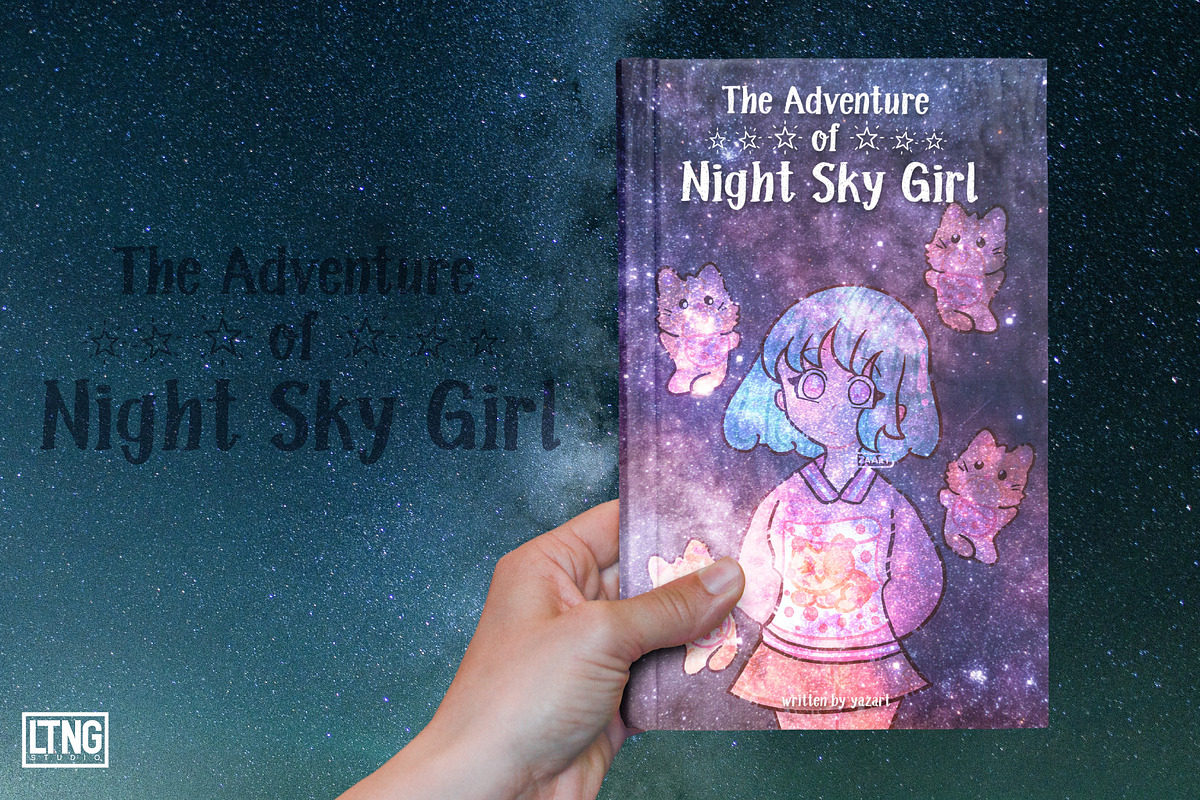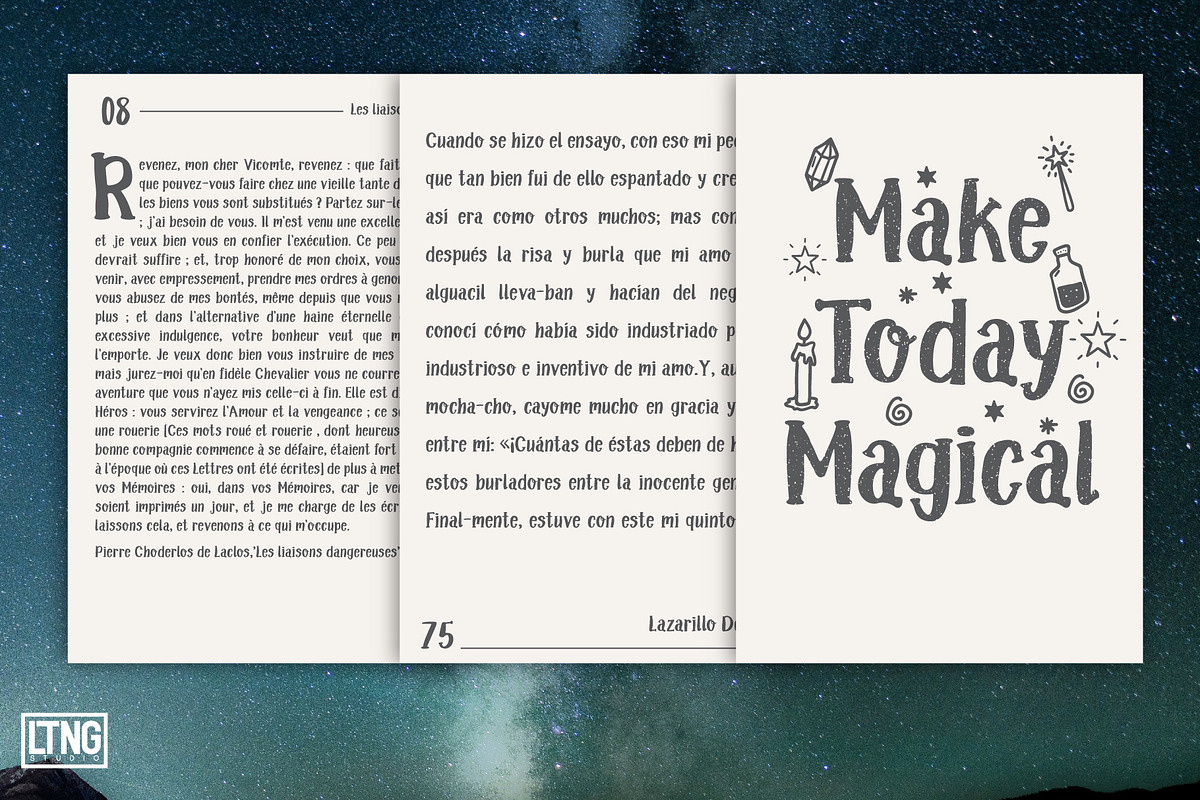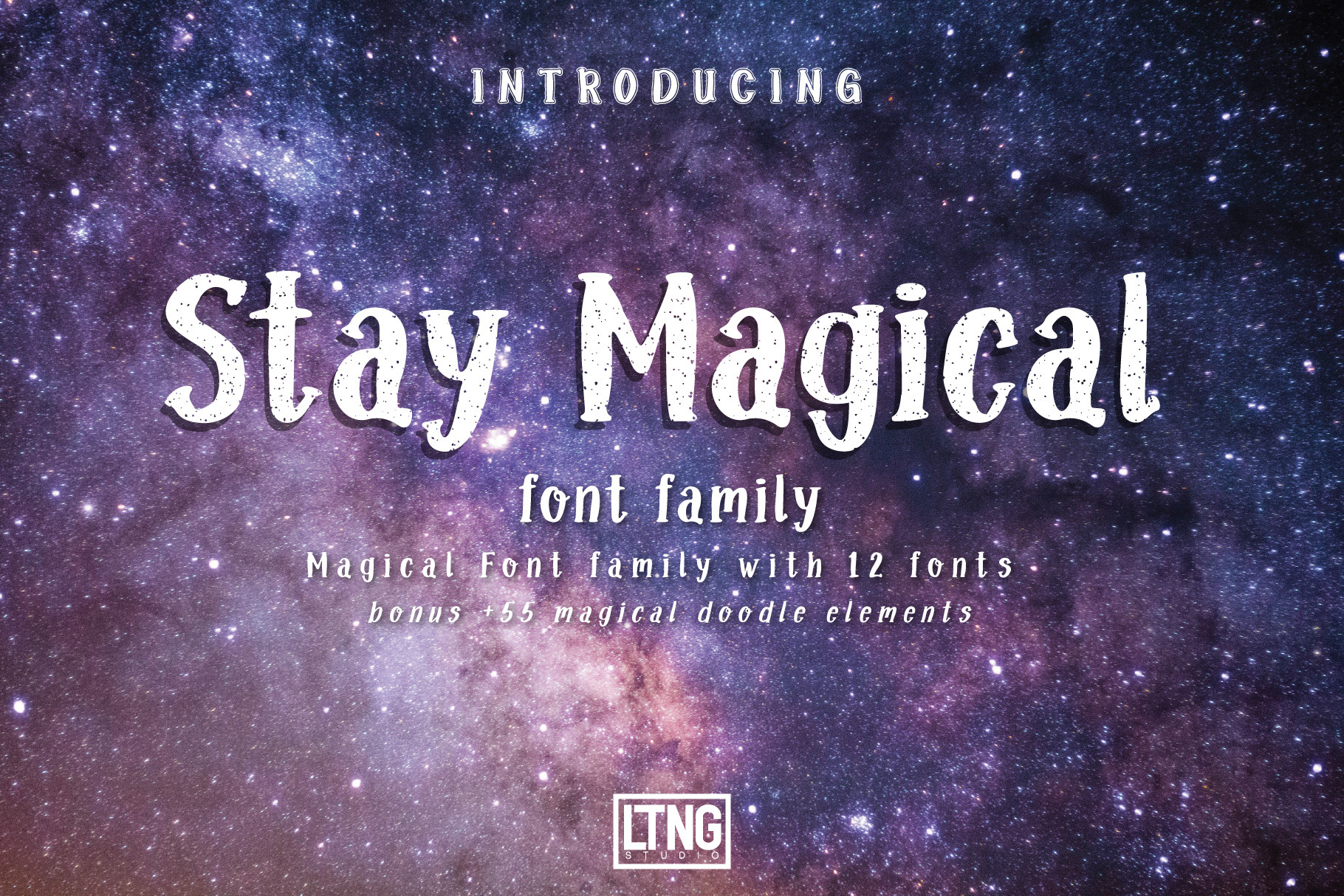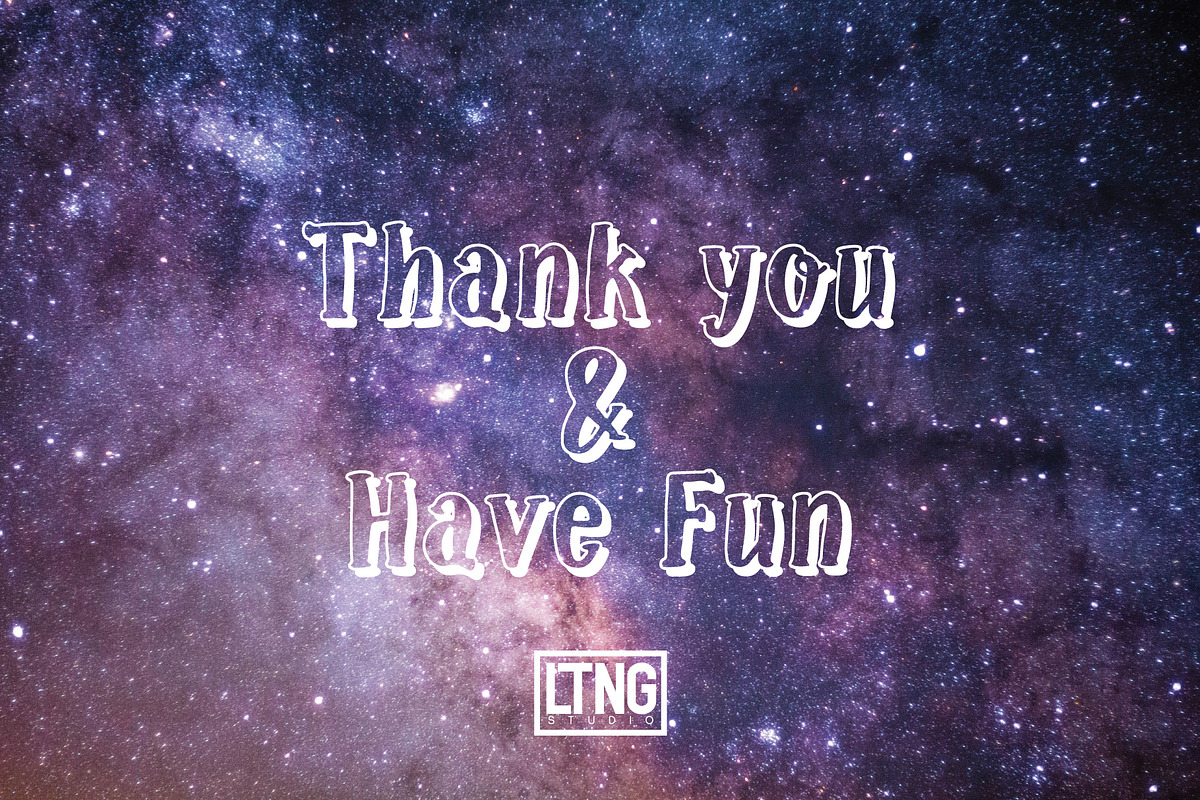
Stay Magical Font Family
Stay Magical Font Family Introducing Stay Magical Font Family a perfectly magical font family with bonus magical doodle element set. More then 12 fonts family will allow you to make tons of gorgeous typographic design such as DIY projects, greeting cards, labels, quotes, posters, wall art, branding, packaging, websites, logo design, packaging design & photography overlays, signs, and so much more! To add to the creative idea of yours, you will get more then +55 magical doodle elements. See the preview above to get some inspiration on how can you use this font for your projects.
Stay Magical Font
Stay Magical Regular
Stay Magical Bold
Stay Magical Bold Italic
Stay Magical Light
Stay Magical Light Italic
Stay Magical Doodle
Stay Magical Bold Outline
Stay Magical Condensed
Stay Magical Shadow 1
Stay Magical Shadow 2
Stay Magical Grain
Stay Magical Outer Outline
- Multilingual Support is included for the following languages: Cornish, Danish, English, Estonian, Faroese, Filipino, Finnish, French, Friulian, Galician, German (Switzerland), Gusii, Icelandic, Indonesian, Irish, Italian, Kabuverdianu, Kalenjin, Kinyarwanda, Luo, Luxembourgish,Norwegian Bokmål, Norwegian Nynorsk, Portuguese, Romansh, Scottish Gaelic, Spanish, Swedish, Swiss German